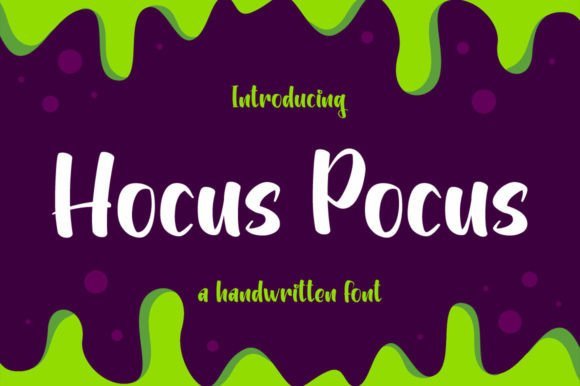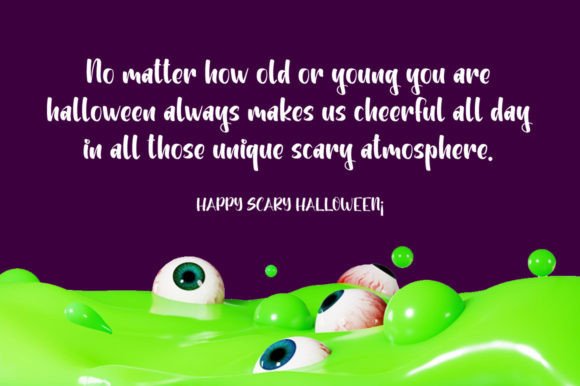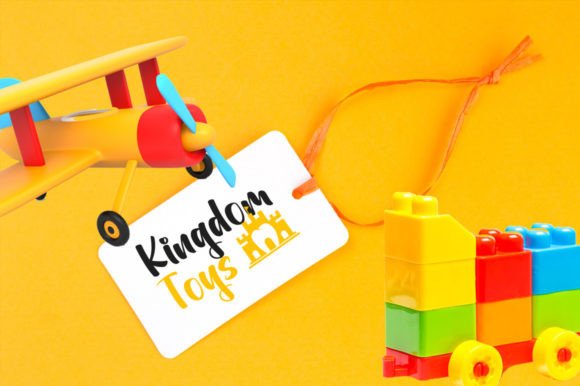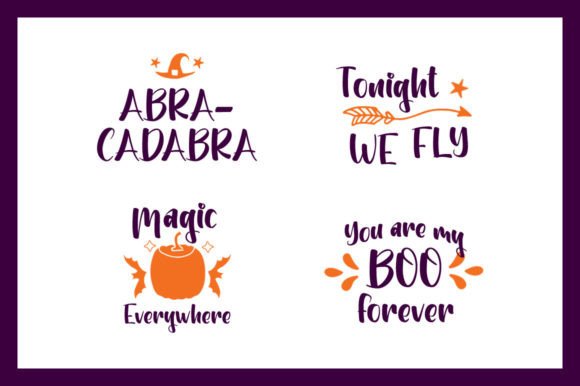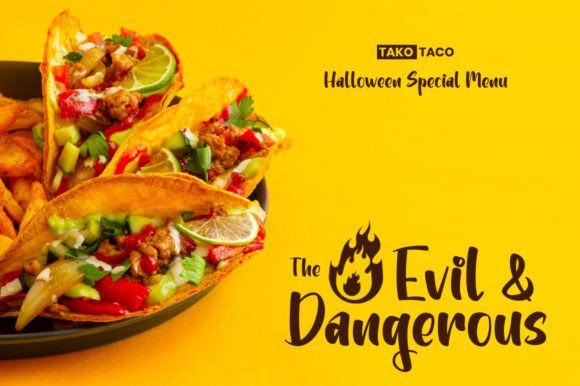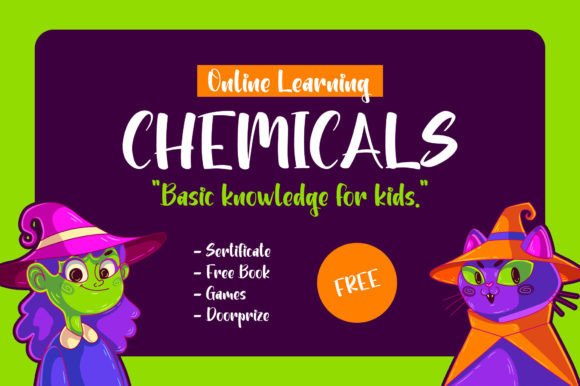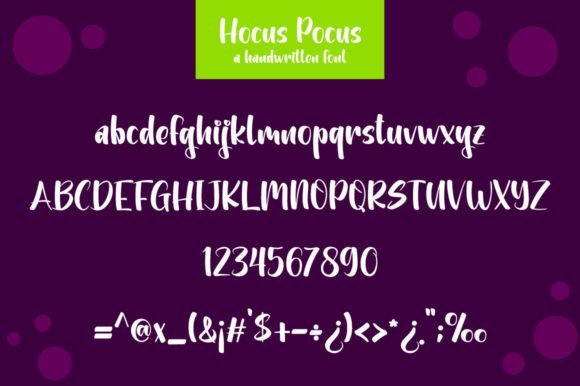
Creating Magical Designs with Hocus Pocus Font
Who else remembers the excitement of rummaging through their grandmother’s old trunk, filled with dusty notebooks and hand-written recipes? The tactile experience of holding a pen and creating something from scratch is something many of us cherish. As designers, we’re always on the lookout for fonts that capture this essence and transport our audience to a bygone era.
Enter Hocus Pocus Font, a charming handwritten font that embodies the spirit of classic chalkboard quotes and vintage teaching materials. With its delicate and simple lettering, this font is perfect for adding a personal touch to your designs. Whether you’re a teacher looking to create engaging lesson plans or a designer seeking a unique aesthetic, Hocus Pocus Font is an invaluable addition to your toolkit.
Hocus Pocus Font Key Features
- Font Family: Hocus Pocus is a display font, designed to add a touch of magic to your digital and print projects.
- Unique Characteristics: Hocus Pocus features a whimsical, hand-drawn design with intricate details and flourishes, adding a touch of fantasy to your projects.
Hocus Pocus Font Review
As a designer, I’ve had the chance to work with the “Hocus Pocus Font”, and I must say it’s a unique addition to any project. ✨ One of the things that stands out about this font is its versatility – it can be used for a variety of projects, from whimsical children’s books to spooky Halloween decorations. ✨ The font’s design is playful and eye-catching, making it perfect for grabbing attention.
However, there are some limitations to consider. ⚠️ One of the main drawbacks is that the font can be a bit overwhelming if used in large quantities. The bold lines and eccentric shapes can be overwhelming to the eye, making it difficult to read large blocks of text. ⚠️ Additionally, the font may not be suitable for professional or formal projects, as it can come across as unprofessional.
Overall, I think the “Hocus Pocus Font” is a fun and creative addition to any project. While it may not be suitable for all types of projects, it’s perfect for those looking to add a touch of whimsy or magic to their design.
- Unique and playful design
- Perfect for whimsical or spooky projects
- Can be used in a variety of contexts
- May be overwhelming in large quantities
- Not suitable for professional or formal projects
To get the most out of the Hocus Pocus Font, experiment with different font sizes, colors, and effects. You can also combine the font with other magical elements, such as stars, moons, or other mystical symbols. Don’t be afraid to get creative and add your own personal touch to your designs.
The Hocus Pocus Font is perfect for Halloween-themed designs, such as invitations, party decorations, or social media graphics. You can also use the font for other magical or mystical designs, such as fantasy book covers or video game graphics.